If you get inspired by old sports broadcasts or flip through vintage game articles, you’ll probably notice how iconic the lettering looks. But, what font did early sports graphics use that can capture and project all the hype and energy of the game? Well, let’s find out!
What Font Did Early Sports Graphics Use?
Early sports graphics often use slab serif fonts because their appearance can draw in fans. Designers were also heavily considering legibility from a distance, leading to the heavy slab serifs, condensed sans-serifs, and script-like display fonts. Yet, with today’s technology, you can mix these iconic elements with a more stylish look from our collection.
1. Hardega
Hardega is a bold script font with sleek and modern cuts. This font combines multiple elements to look sporty, like using italics, simple swashes, and confident strokes.
2. Roxbe
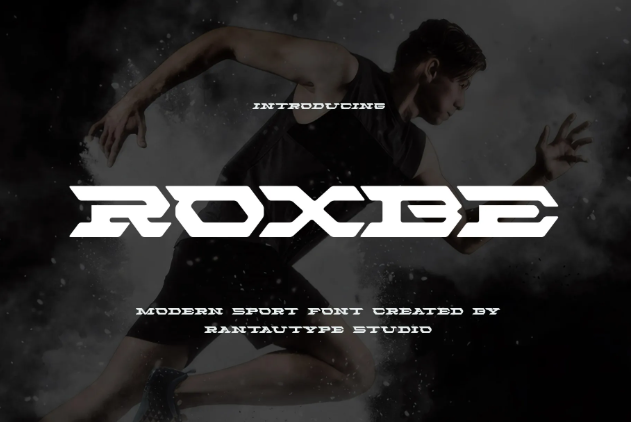
Roxbe is a modern sports font that focuses on letter continuation and motion feel. With a bold appearance and coarse look, this font evokes more underground vibes.
3. Galantic
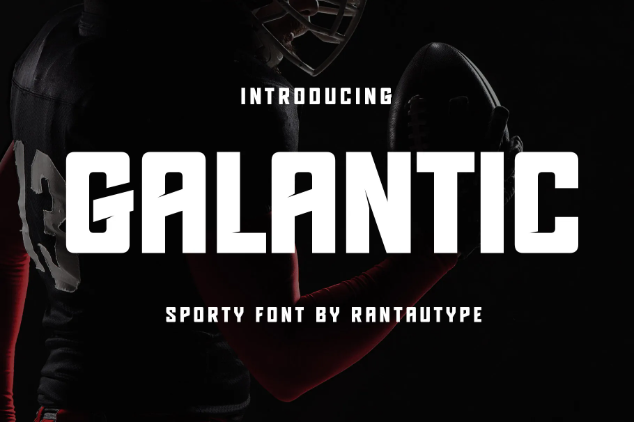
Galantic is inspired by old-school sporty advertising with its big and loud look. It’s basically the sans-serif slab look just with a more modern and angular touch.
4. BravoTeam
You can answer “What font did early graphics use?” with BravoTeam. This font is the embodiment of the classic slab serif look, although using more precise, modern cuts.
5. Remodia
Remodia is the modern representation of the sports font. This font is considered experimental sans because it combines the regular sans serif look with a more curly, almost script letterforms.
6. Bendagi
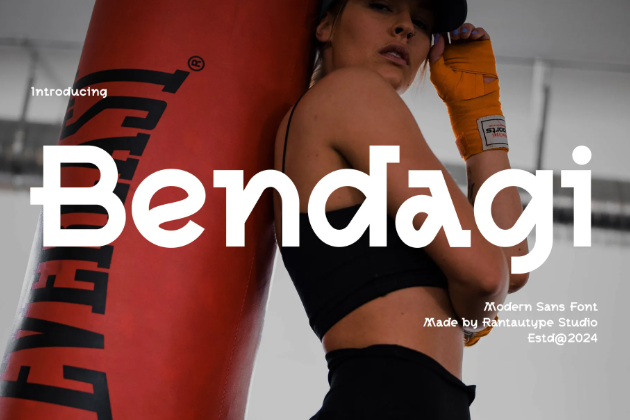
Bendagi is another modern font, with a combination of both serif and sans-serif letters. This font has iconic diagonals along with its curvy and rigid lines.
7. Renamor
Among our sporty fonts, Renamor has the best luxurious impressions. This font has a leaner appearance compared to a slab font but exudes the same fun and exciting look.
8. Radeny
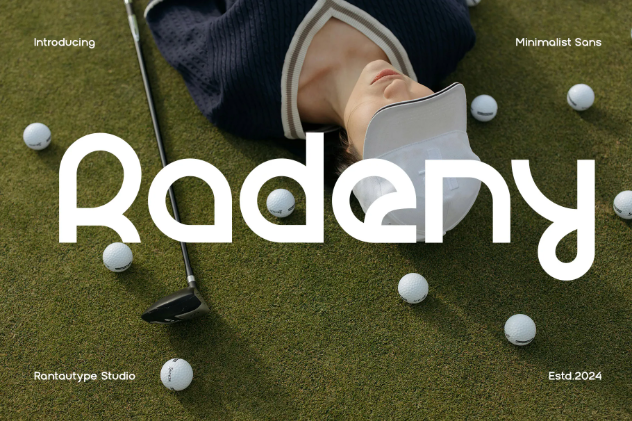
Radeny is a sans-serif font with modern aesthetics. This font is on a calmer and high-end look, perfect for representing “expensive” and elegant sports.
9. Ronesa
With a font like Ronesa, you can better represent the stylish and quick nature of any sport. This font is equipped with the italic style that adds motion and squared letters that reflect strength.
10. Galecy
Galecy is so versatile that teeters the line between sporty and stylish. The font still represents the thick old-school lettering used but with more modern shapes.
11. Kardige
Back in the day, if you wanted to match the excitement of wheeled sports, you used a circular font like Kardige. However, this font has undergone modern influence.
12. Riskoda
Riskoda is a marker font with street aesthetics. A font like this is perfect as your merch production font, the font has a bold look and speedy motion.
13. Punches
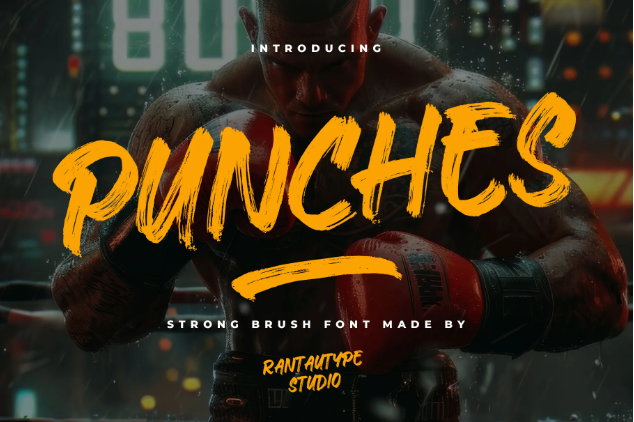
If you want a rougher typeface for your sporty designs, use Punches. This font utilizes the dry-brush look to clarify its strong motion.
14. Begalin
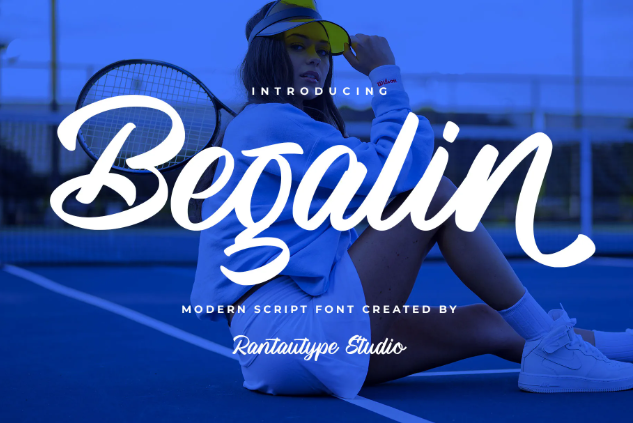
What font did early sports graphics use that is still relevant today? The answer is font like Begalin. With its flowy lines, this font is suitable for chill and posh sports.
15. Theroar
Theroar sporty font chooses a tall and condensed look. This font has both a strong look and fun vibes, a great combination for a uniquely new design.
16. Dragna
Dragna is a modern sports font with a speedy personality. It’s an all-caps font with a stylish and modern look. This font also has a cool sports number font that has great legibility.
17. Defront
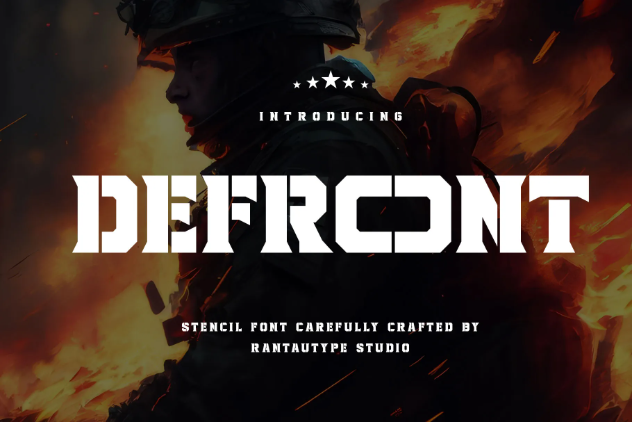
Defront is a stencil slab font, inspired by military aesthetics. This one brings a bold, strong, and rugged nature to your designs.
18. Stenar
Stenar is a bold, modern display font with unique letterforms that make a great jersey name font. Its bold letters are so recognizable that you can easily read them from a distance.
19. Rush Driver
Rush Driver is a tailor-made font with racing-inspired looks. This font can capture the essence of the automotive spirit with its metal-like visual.
20. Elsone
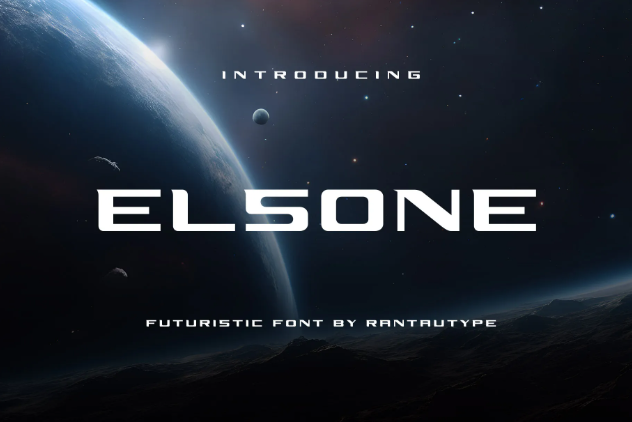
Elsone is the futuristic spin of the blocky early sports fonts. This font still retains the sporty vibes, just with cleaner and more stylish letterforms.
21. Rosther
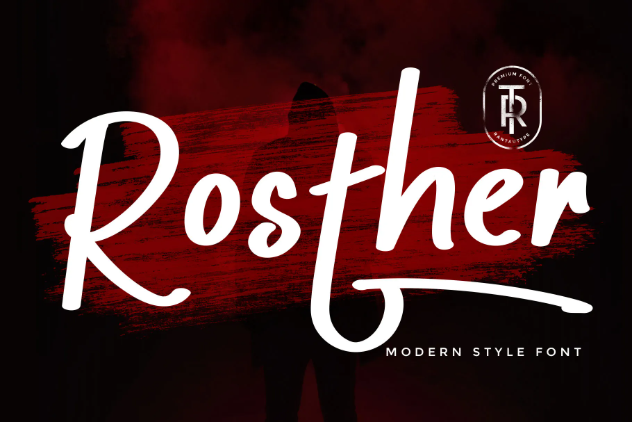
Rosther is a stylish brush font with a sporty look. This font utilizes bold, quick strokes that signify confidence.
22. Advero
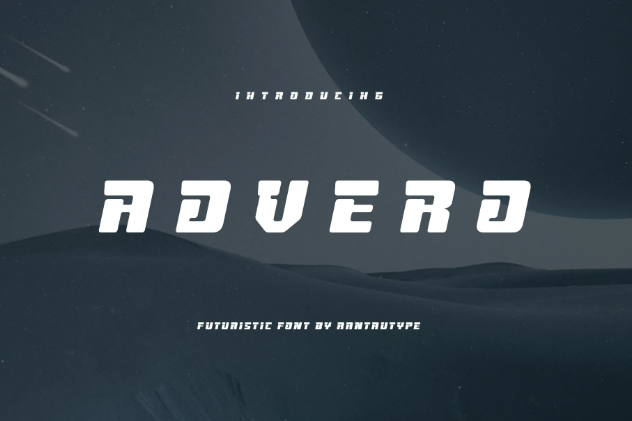
Advero is a bold, futuristic font, utilizes the familiar cut-outs just like a stencil typeface to further evoke a futuristic sporty feel.
23. Vorcas
What Font Did Early Sports Graphics Use? Choose Now!
From the bold block letters to the sharp and dynamic typography, early sports graphics had a style of their own. With the inspiration of the early fonts and modern technology, we can represent them with a sleeker look.